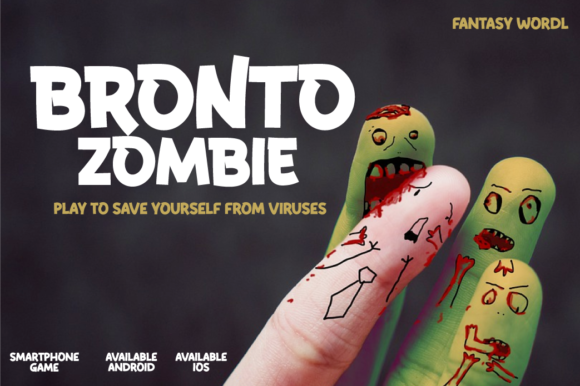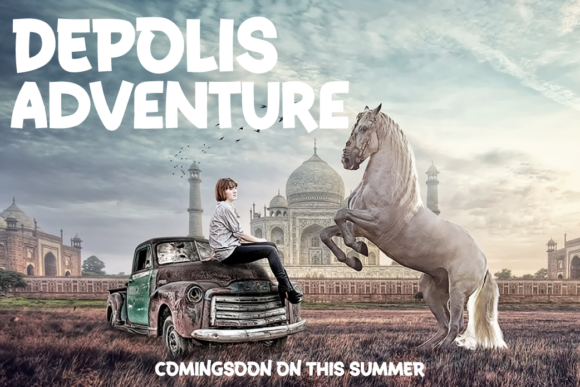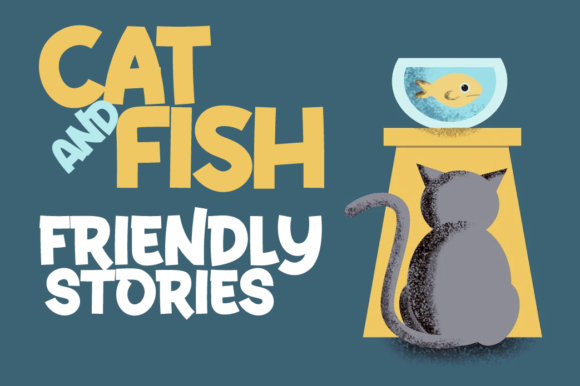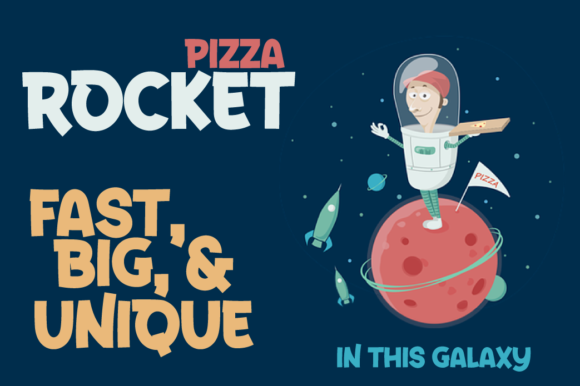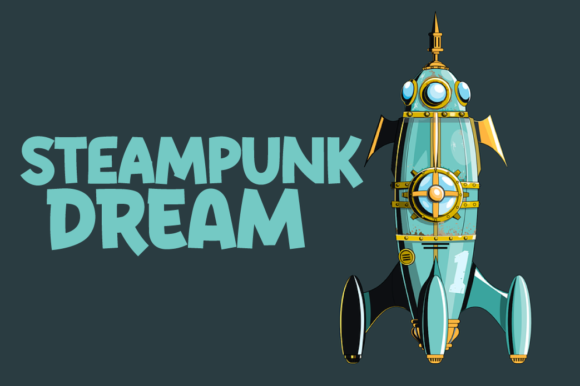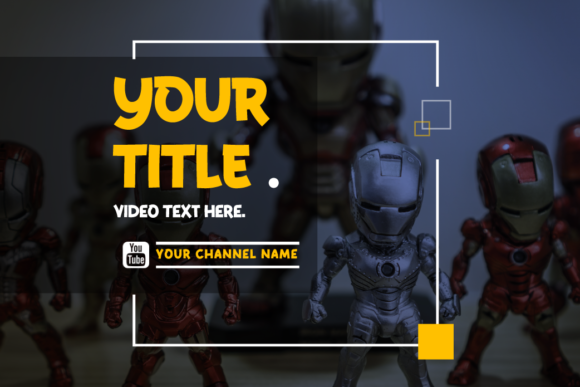
Introducing Broqi Font: The Ultimate Choice for Fun and Playful Designs
Are you tired of using the same old fonts for your designs? Look no further! Broqi Font is here to revolutionize your creative projects with its fun and trendy display font style. This chunky lettered font is perfect for adding a touch of playfulness and authenticity to your designs, making it an ideal choice for children’s activities, school projects, and more.
What Makes Broqi Font So Special?
Broqi Font embodies the spirit of playfulness and authenticity, making it a standout font for any design project. Its unique and chunky lettering style gives your designs a fresh and youthful look that’s sure to capture the attention of your audience. Whether you’re working on a children’s book, a school project, or a fun craft, Broqi Font is the perfect choice to add a dash of personality and whimsy.
As a designer or crafter, you’re always on the lookout for fonts that can help you create engaging and visually appealing designs. Broqi Font is specifically designed to help you achieve just that. Its bold and playful style makes it perfect for a wide range of projects, from:
- Children’s activity sheets and workbooks
- School project posters and presentations
- Use it as a headline font to add a pop of personality to your designs
- Pair it with other fonts to create a unique and visually appealing combination
- Use it to create fun and engaging titles and headings
The Benefits of Using Broqi Font
So why choose Broqi Font for your designs? Here are just a few benefits:
- Playfulness: Broqi Font adds a touch of playfulness and whimsy to your designs, making them more engaging and fun
- Authenticity: Its unique and chunky lettering style gives your designs an authentic and homemade feel
- Versatility: Broqi Font can be used for a wide range of projects, from children’s activities to social media graphics